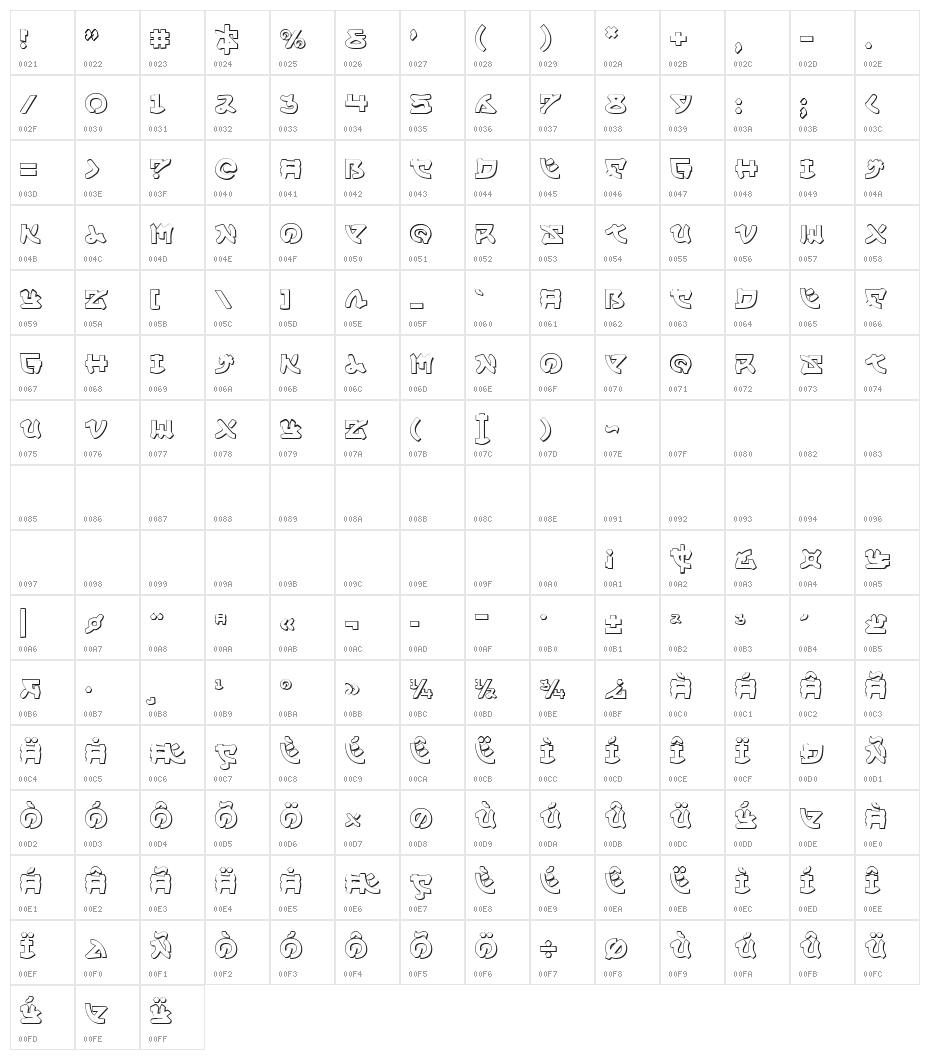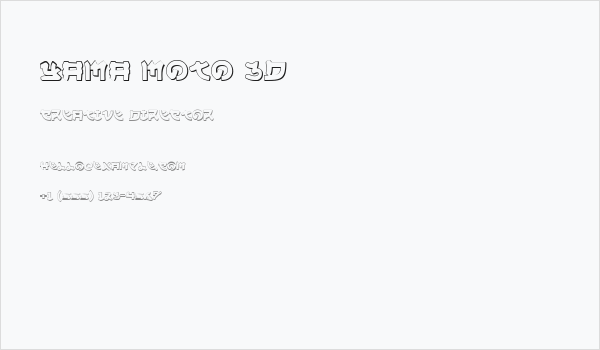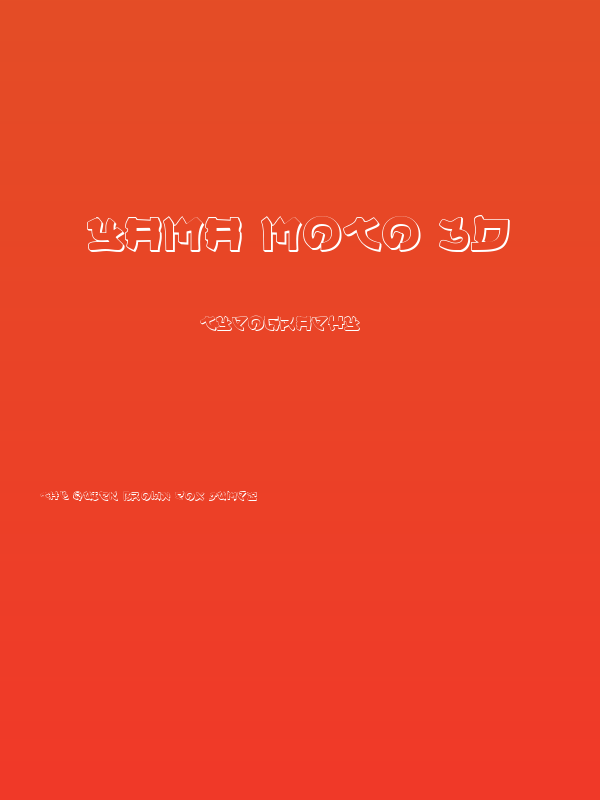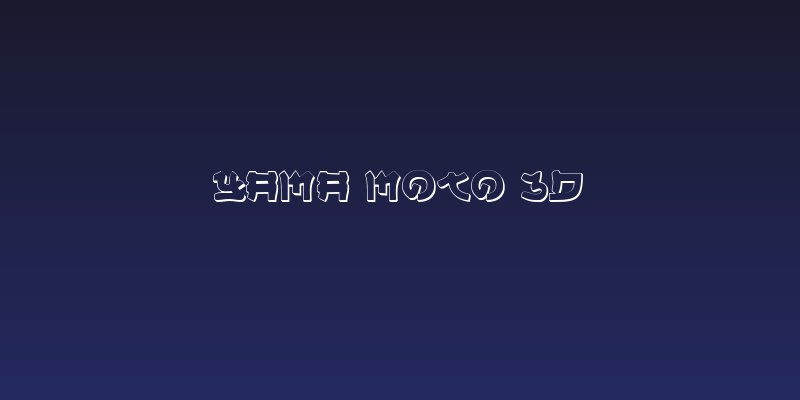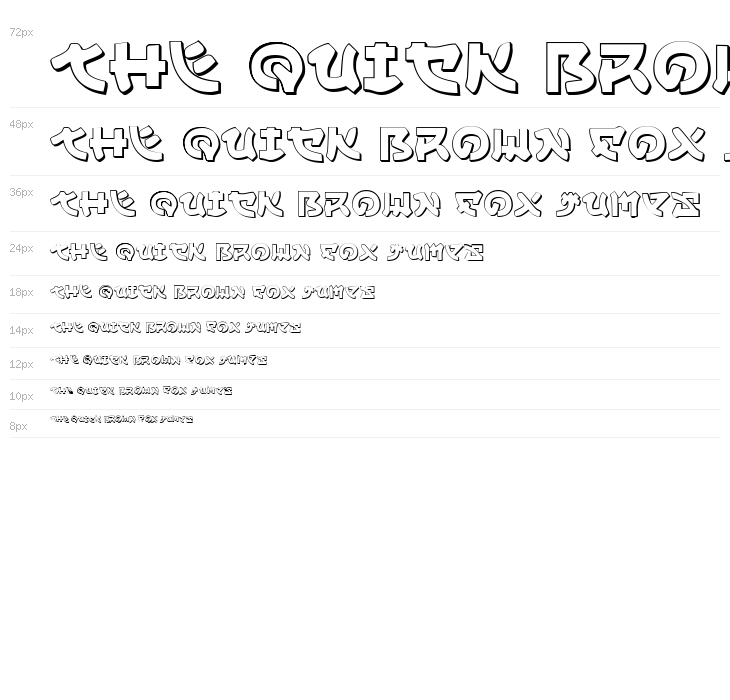
Yama Moto 3D Font
Yama Moto 3D Description
This font features a bold, three-dimensional appearance with a futuristic and geometric style. The characters are outlined with a thick border, giving them a distinct, blocky look. The design incorporates sharp angles and unique shapes, making it stand out as a decorative typeface. The uppercase and lowercase letters maintain a consistent style, with the numbers and special characters following the same design principles. This font is ideal for projects that require a modern and edgy aesthetic.